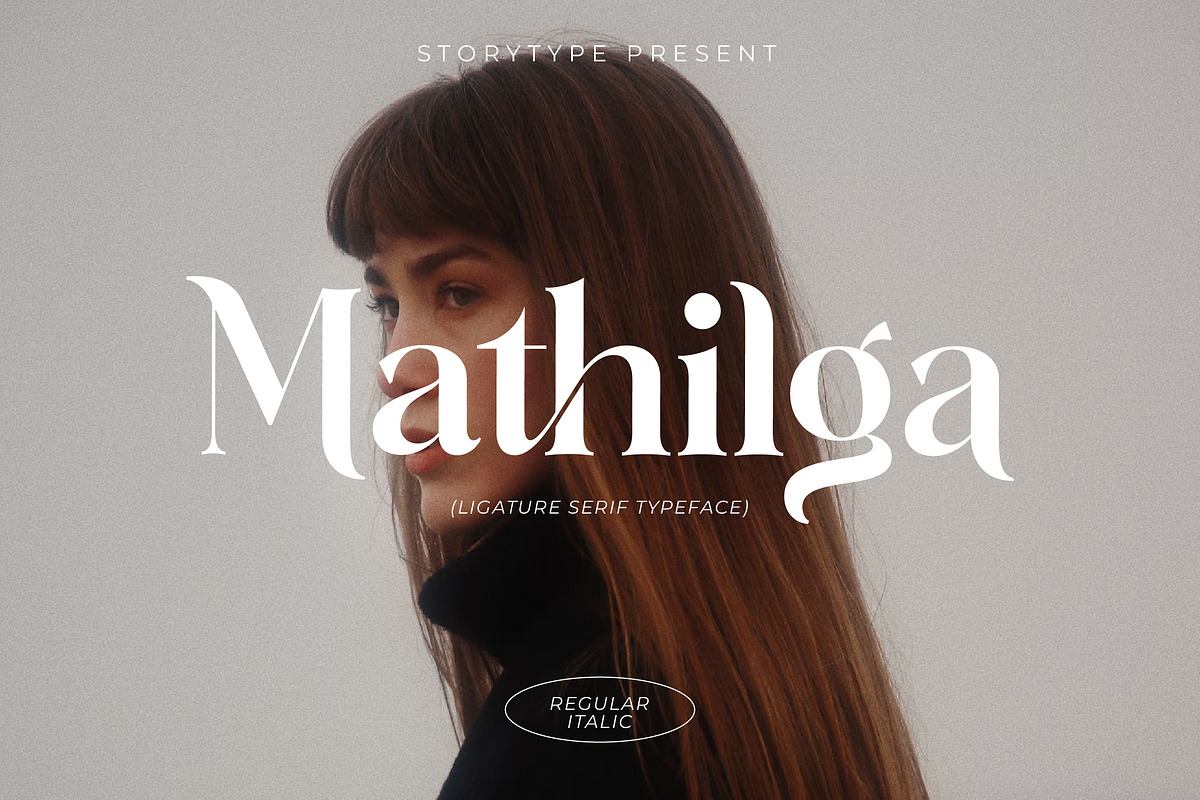
Mathilga Ligature Serif Typeface Free Download
Mathilga Ligature Serif Typeface Free Download is a sophisticated and stylish serif font with ligatures that bring a unique flair to your designs. Combining classic serif structure with modern design elements, Mathilga is perfect for high-end branding, editorial layouts, luxury packaging, and any project that requires elegant and intricate typography.
The ligatures in Mathilga give your text a dynamic, smooth flow, enhancing the visual appeal and readability while adding a touch of refinement. Whether you're designing for fashion, upscale products, or corporate branding, this font adds a polished and professional look to your typography.